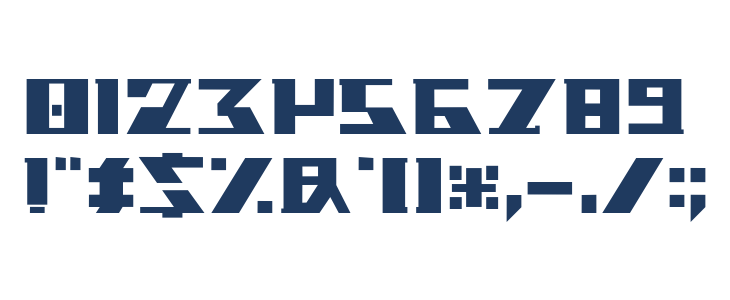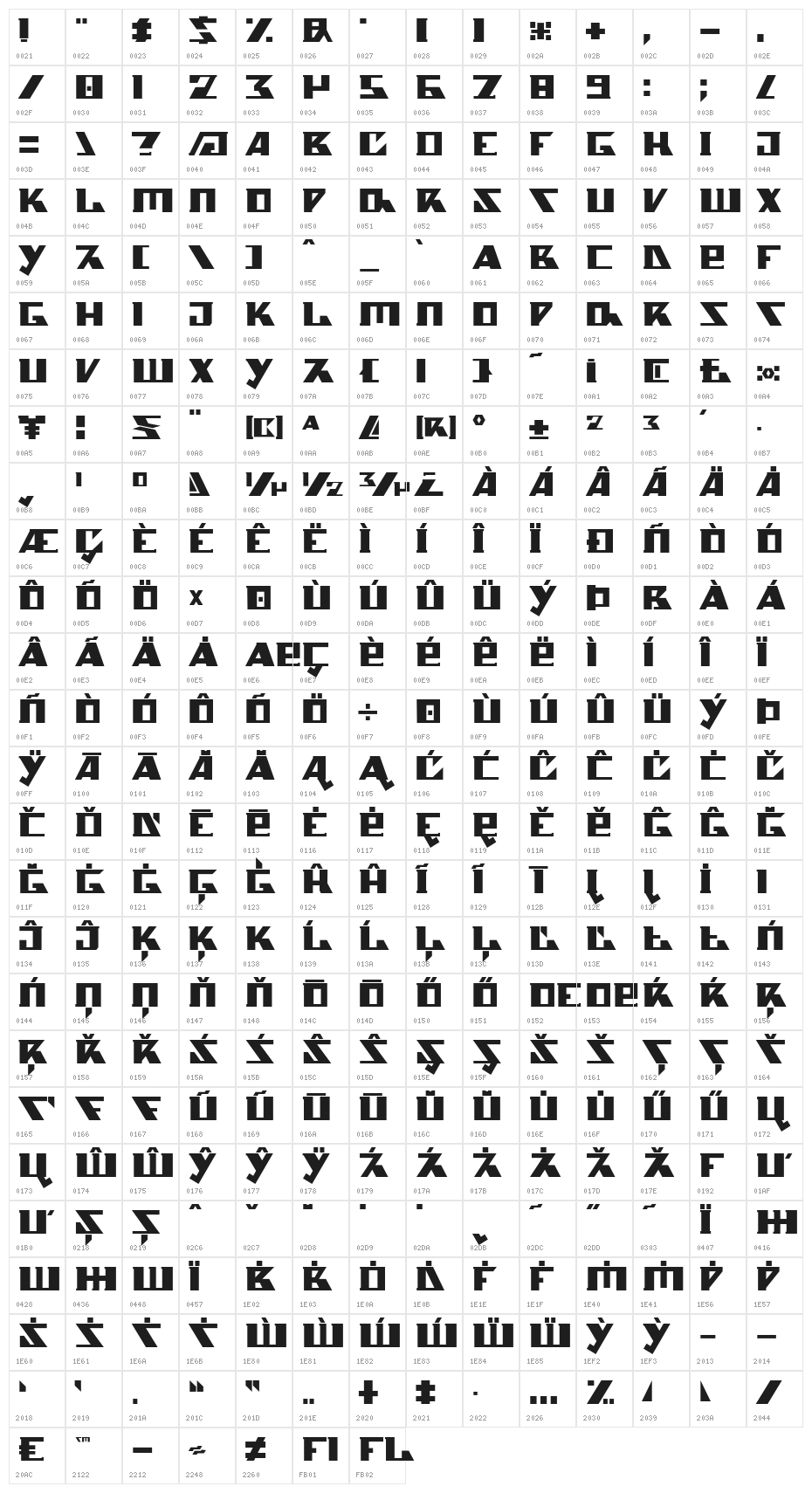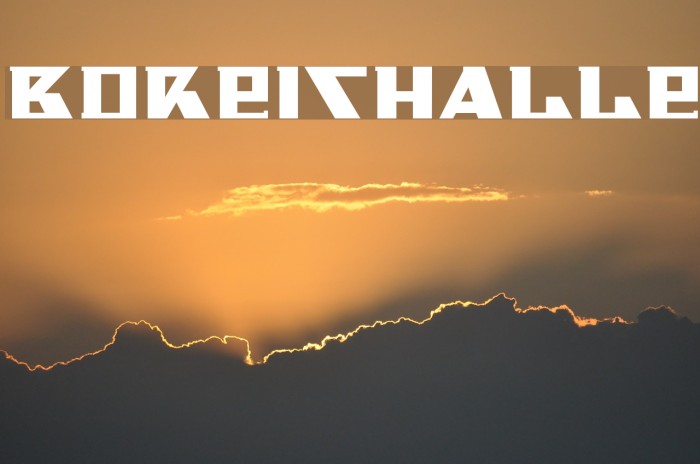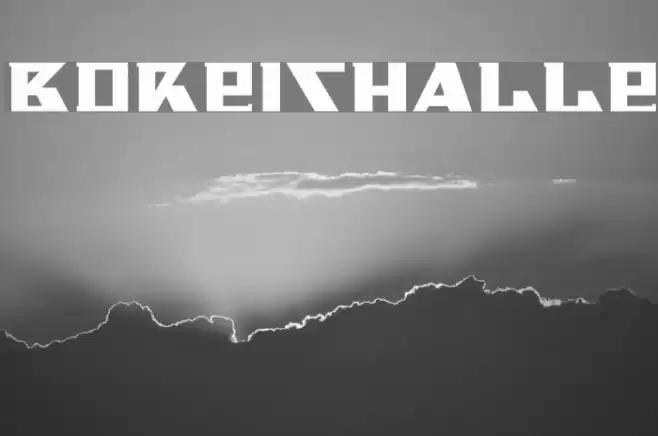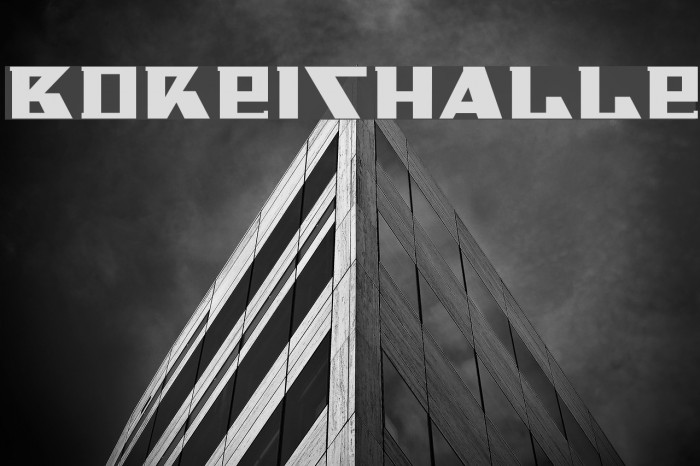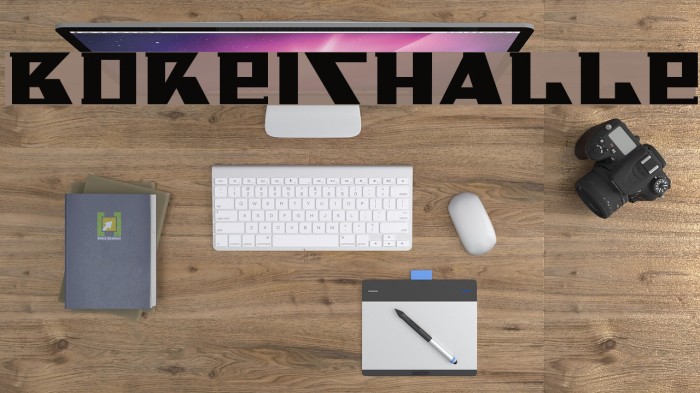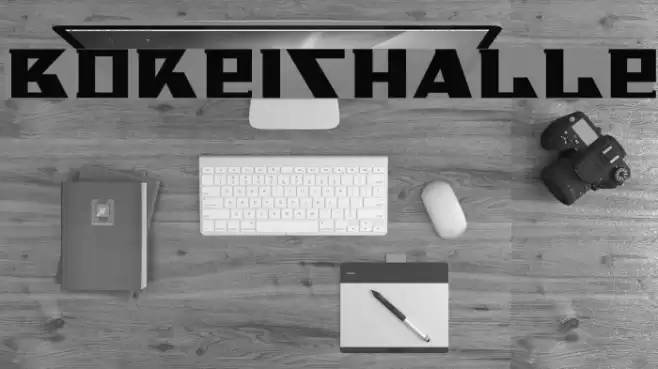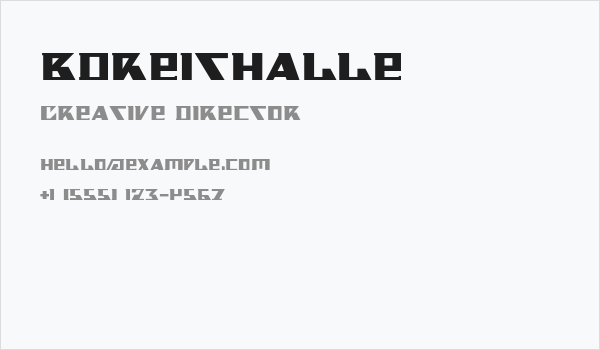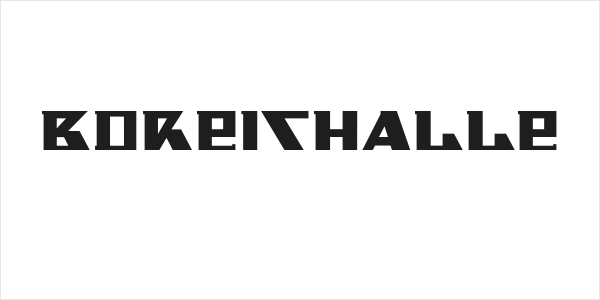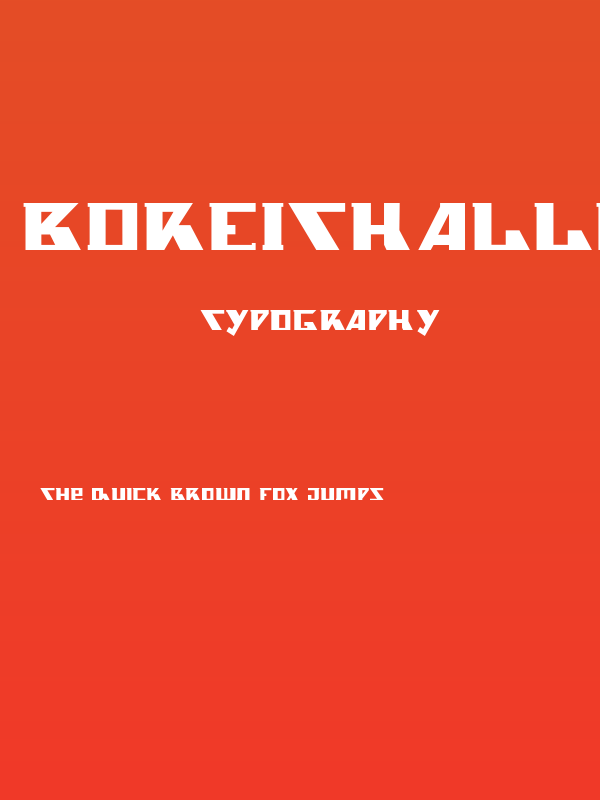
BDReithalle Font
BDReithalle Description
This font features a bold and geometric design with sharp angles and a futuristic aesthetic. The characters are constructed with a combination of straight lines and angular cuts, giving it a dynamic and edgy appearance. The uppercase letters exhibit a strong presence, while the lowercase letters maintain the same angular style, ensuring consistency across the typeface. The numerals and special characters are designed to match the overall geometric theme, making them suitable for modern and tech-oriented projects. The font's unique style makes it stand out, ideal for creating eye-catching headlines and logos.
| Proposed Projects | Ideal for tech branding, futuristic posters, video game titles, and modern logos. |